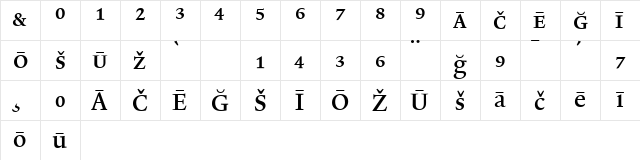
Lexicon No2 Roman B Pi Font Preview
Lexicon No2 Roman B Pi
Lexicon No2 Roman B Pi Font Details
Design Context for Lexicon No2 Typeface
Lexicon No2 takes a measured approach to typography — its balanced proportions and neutral character make it a reliable workhorse for both digital and print work.